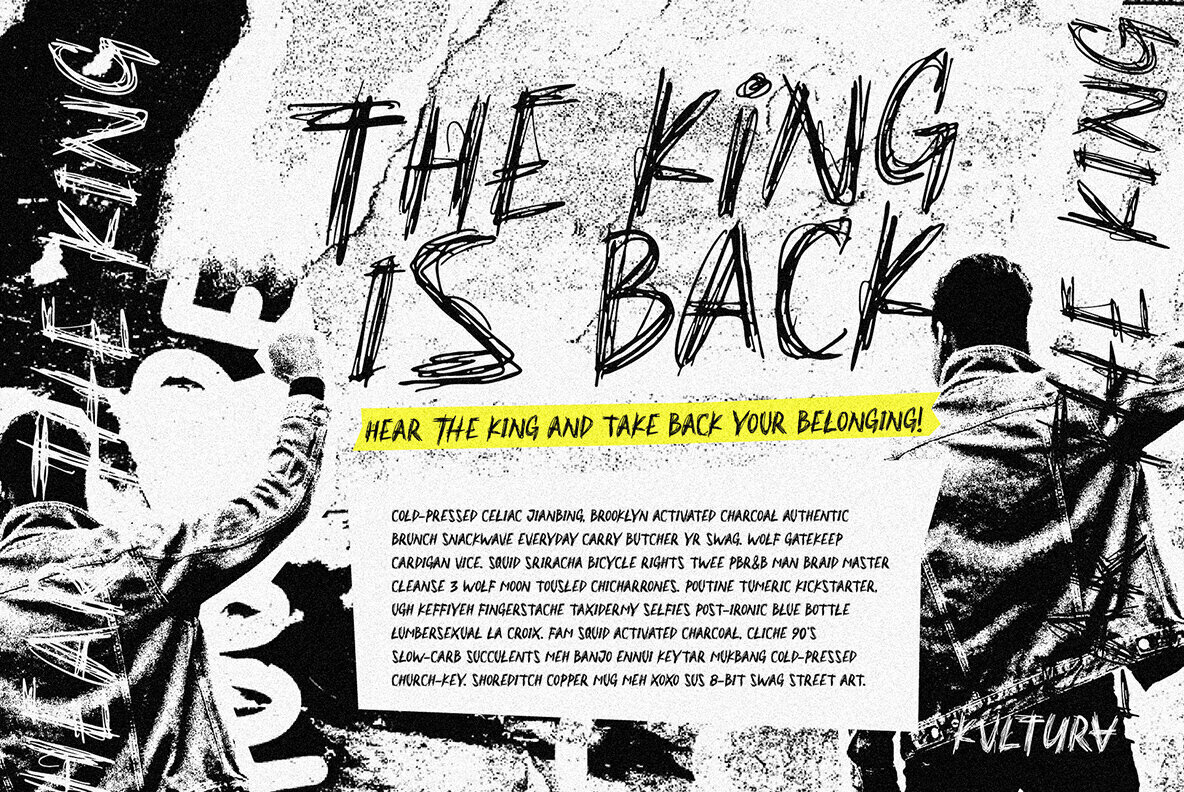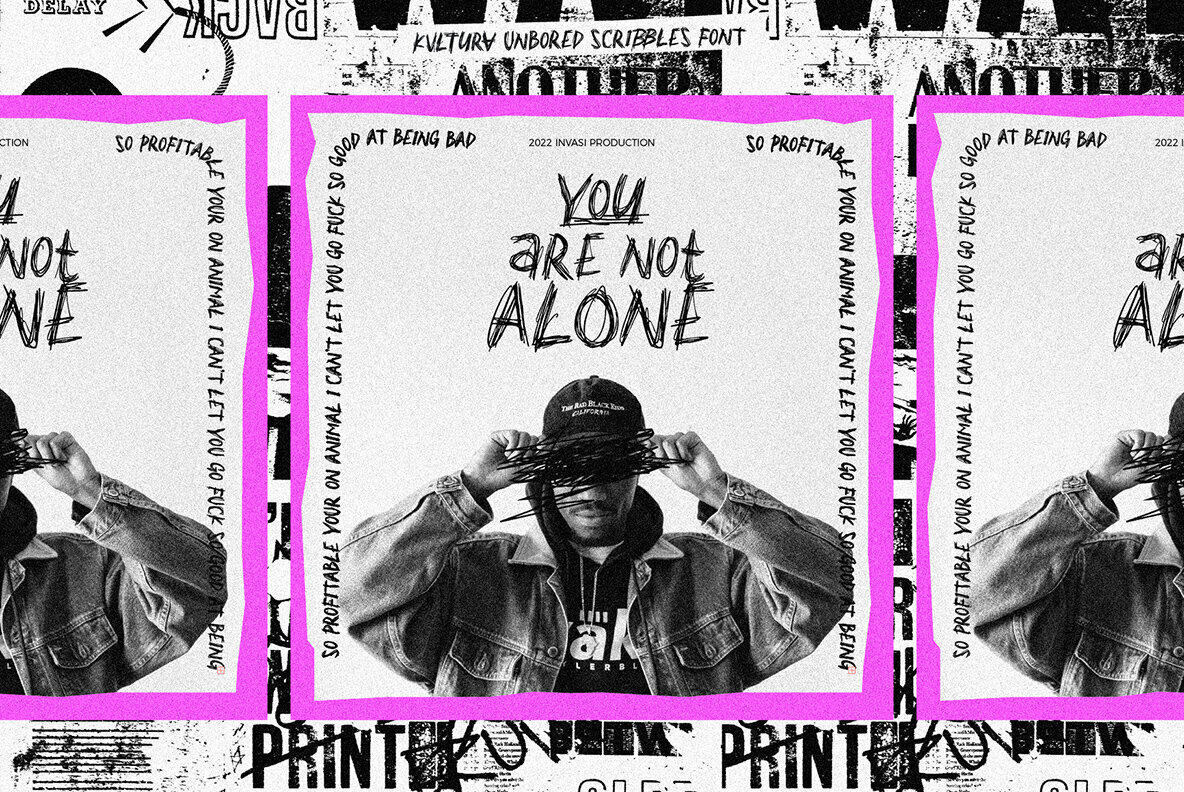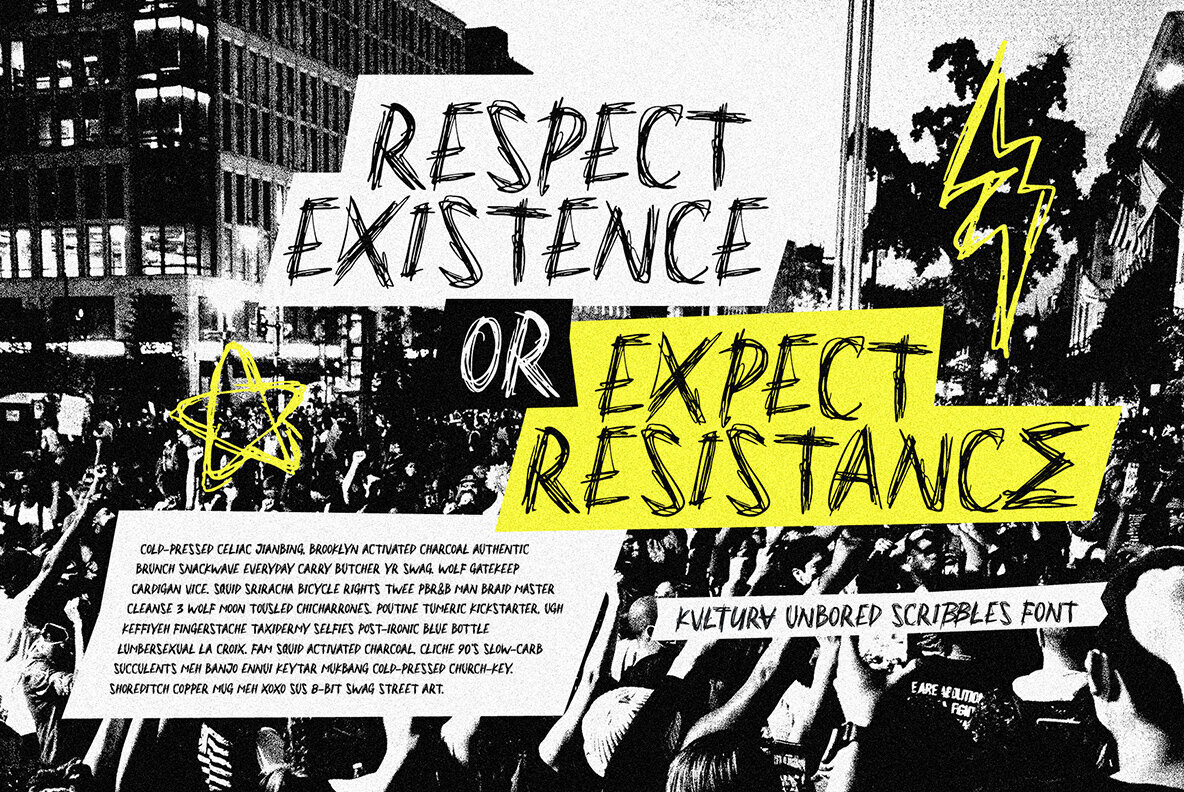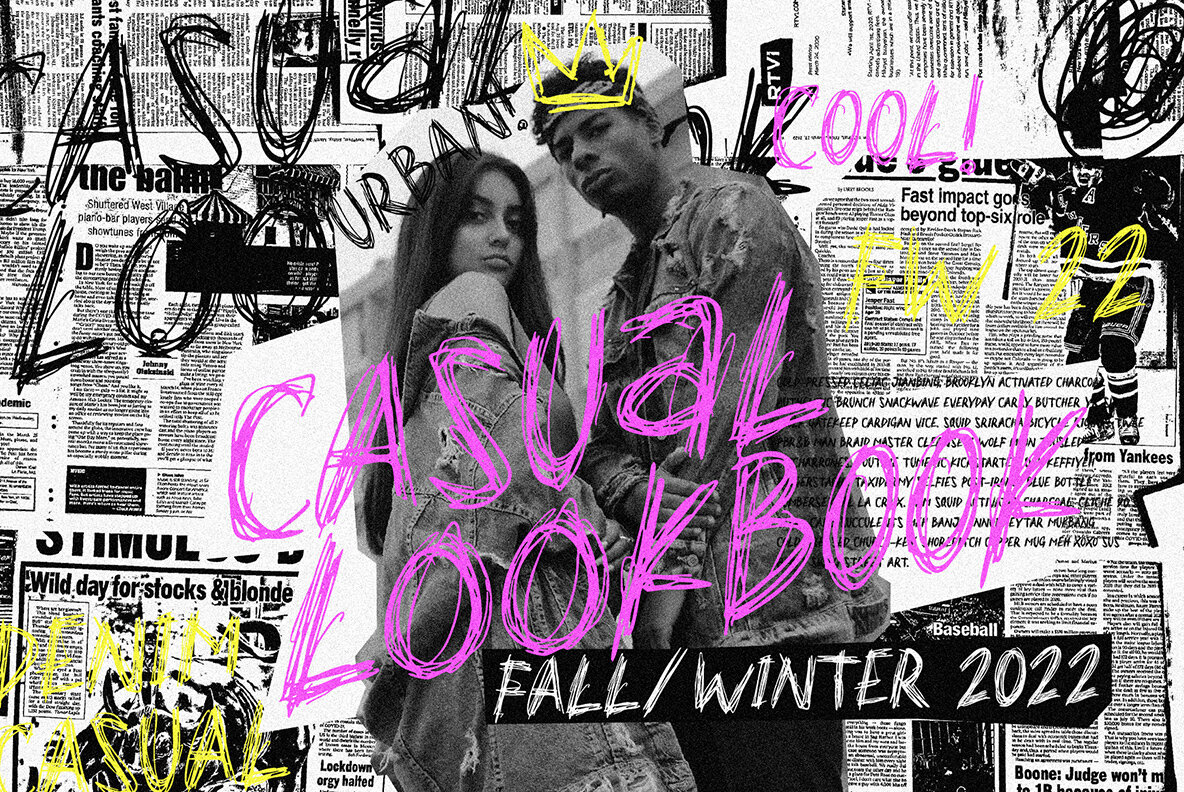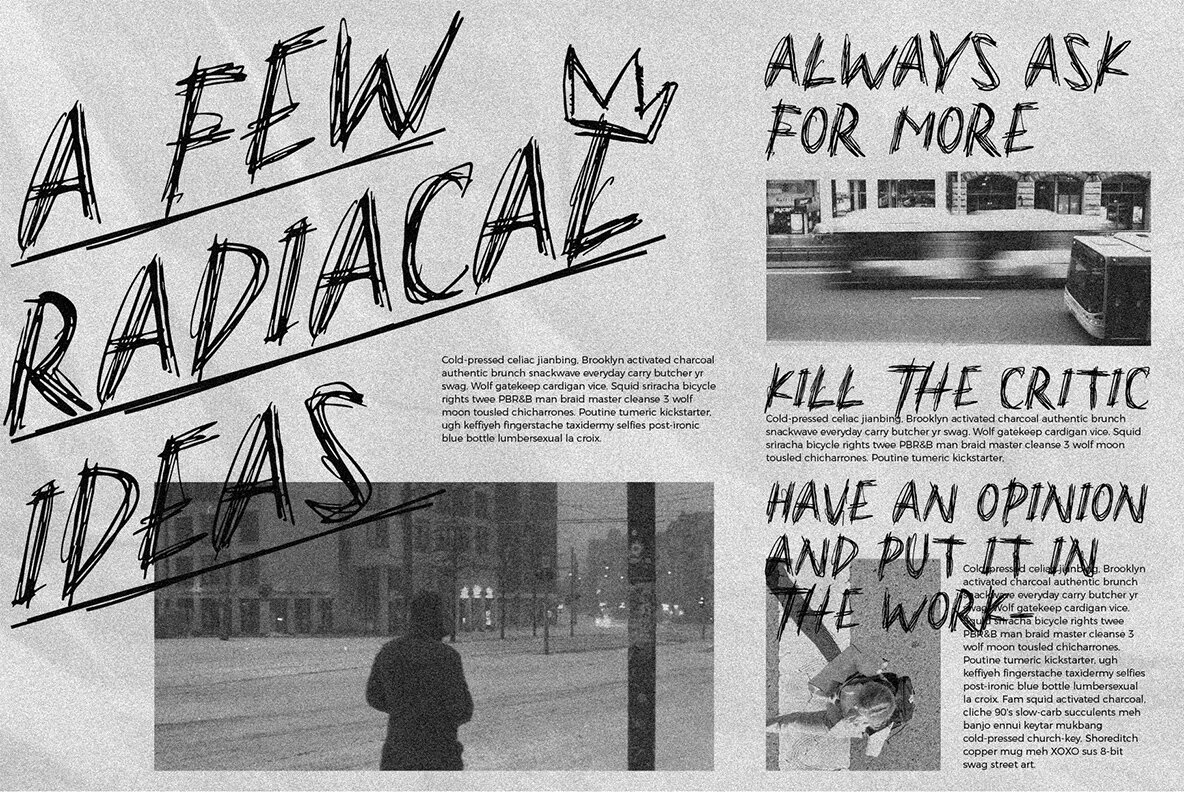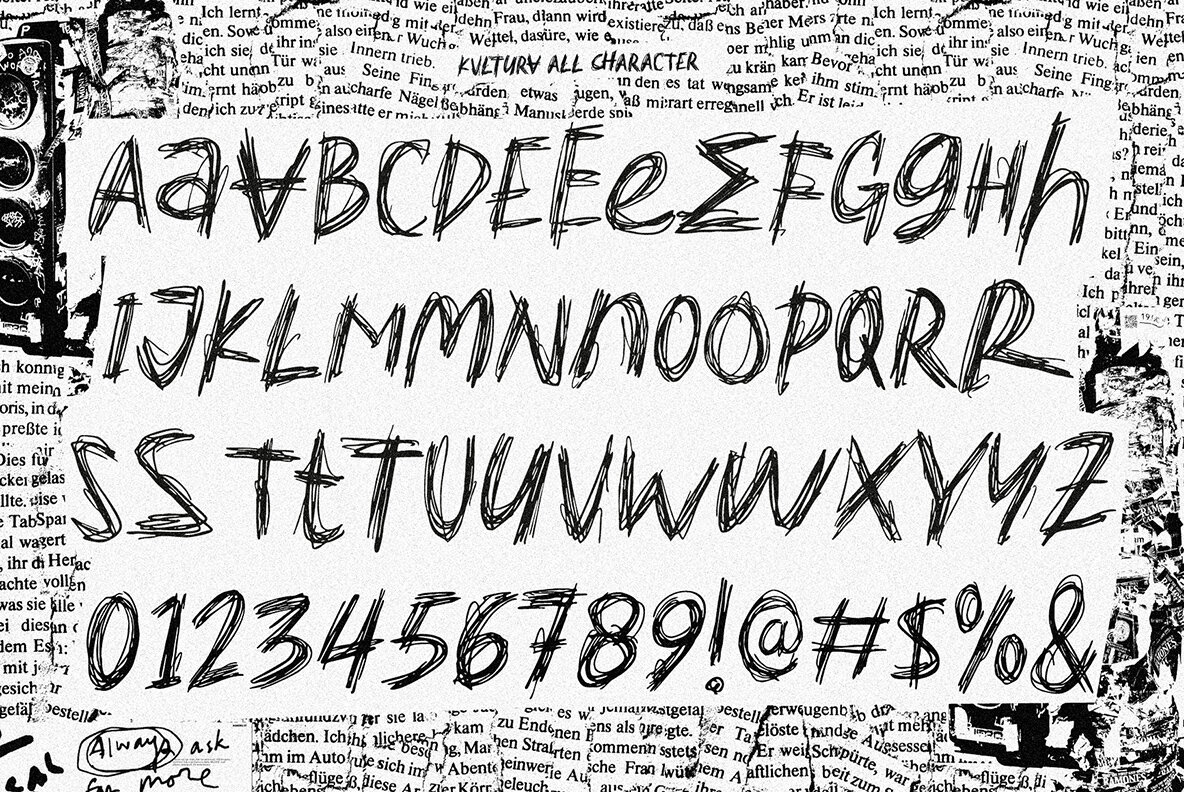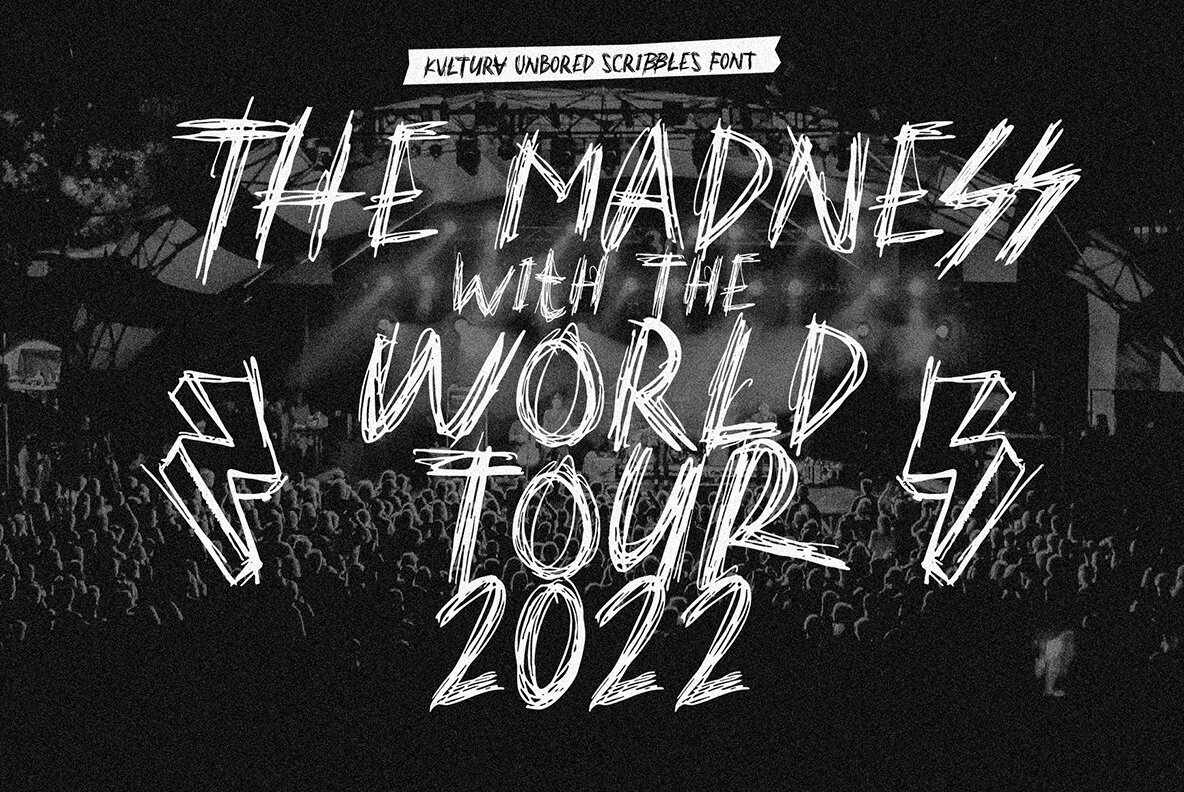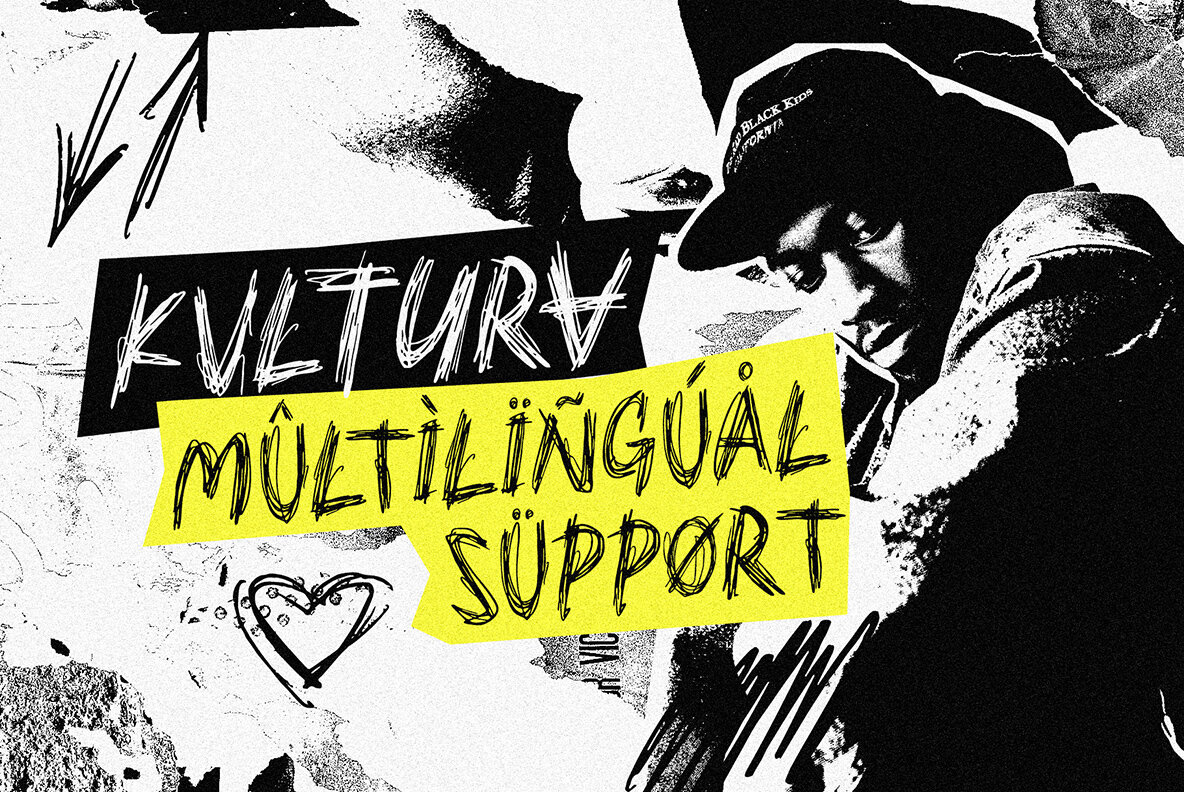
Kvltura Font
Kvltura Regular
With Kvltura Font, you can make your voice louder. This all-caps handwritten typeface has an incredible combination of characters that are available with a single click!